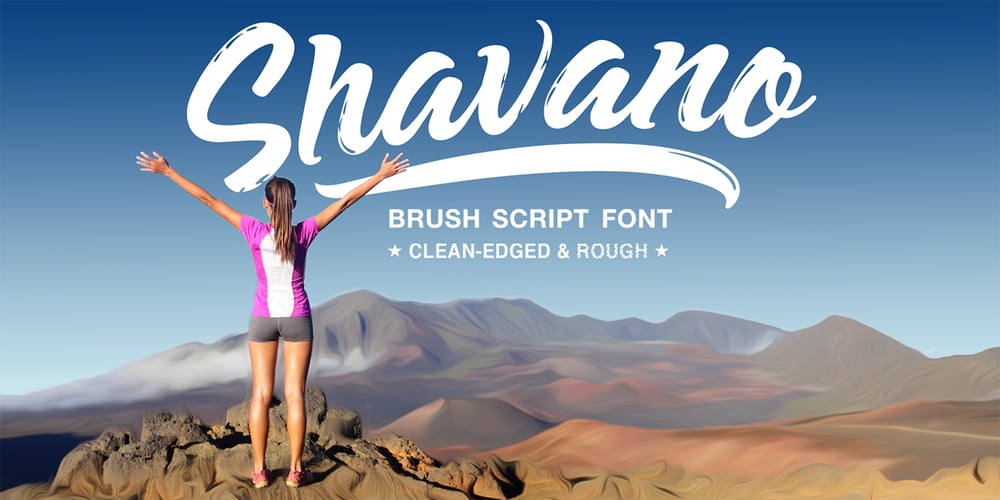
Shavano
Shavano font
Shavano Font Family was designed by Dan Cotton and published by Dan Cotton Lettering. Shavano contains 2 styles and family package options. Shavano is a bold, smooth-flowing typeface based on pointed brush script. It comes in a clean-edged and a rough style. It is ideal for branding, packaging, headlines, and apparel. This font comes with ligatures, swashes, and alternates.